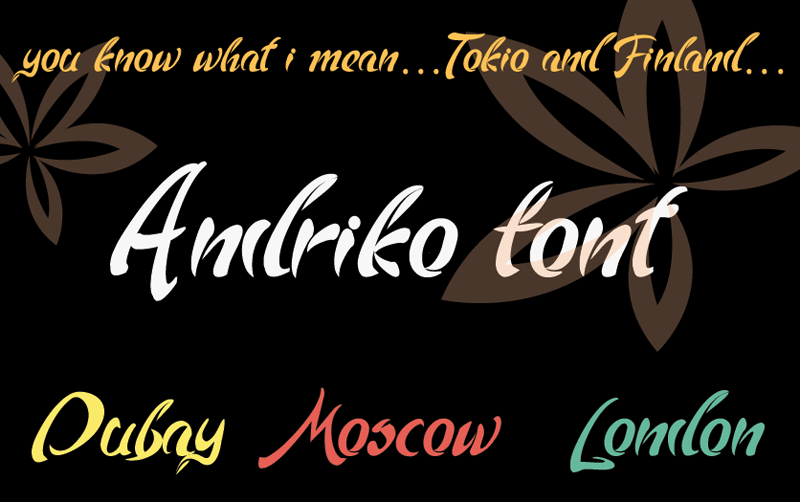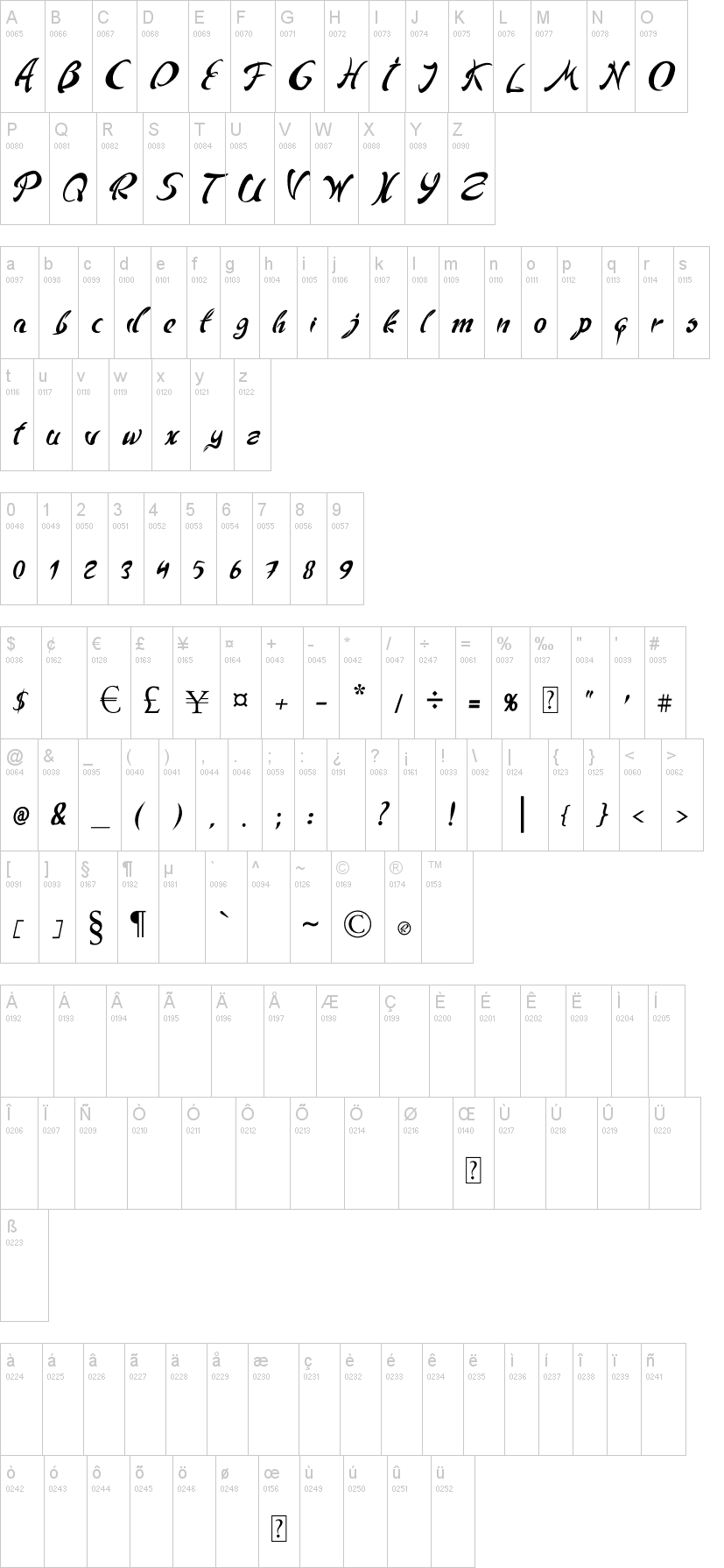
Шрифт Andriko
The Andriko font is inspired by the flow of nature. The fluid grace of the striking, natural strokes evokes a sense of primal luxury perfect for anyone wanting to make a bold and unique statement.